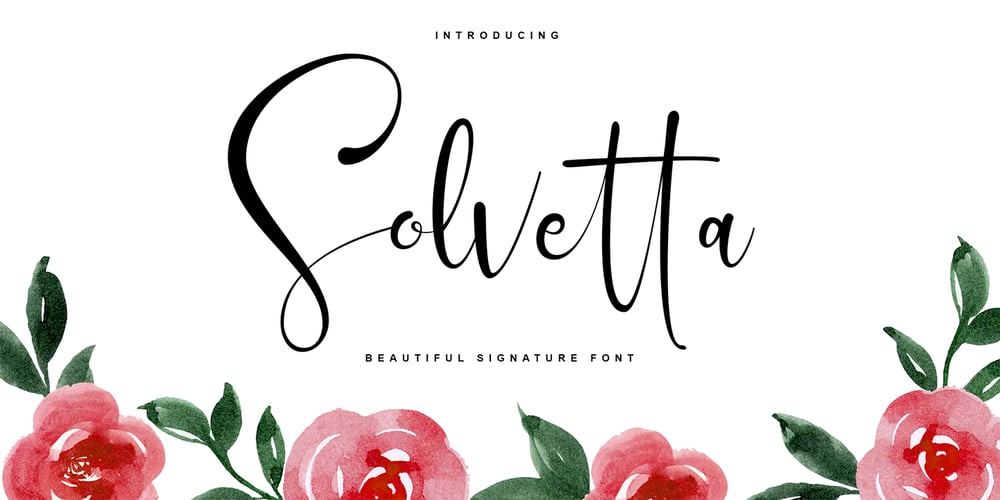
Solvetta
Solvetta font
Solvetta Font Family was designed by Akhmad Reza Fauzi and published by Grezline Studio. Solvetta contains 1 styles and family package options. Solvetta is a light and charming handwritten font with a unique feel. It will add a bold feel to any design project!You can use Solvetta font to make a logo for branding, typography design, magazine or book cover, website header, product packaging, invitation, quotes, t-shirt design, label poster and more.Feature :- Multilingual Language – Works on PC & Mac- Simple installations- Accessible in the Adobe Illustrator, Adobe Photoshop, Adobe InDesign, even works on Microsoft Word.